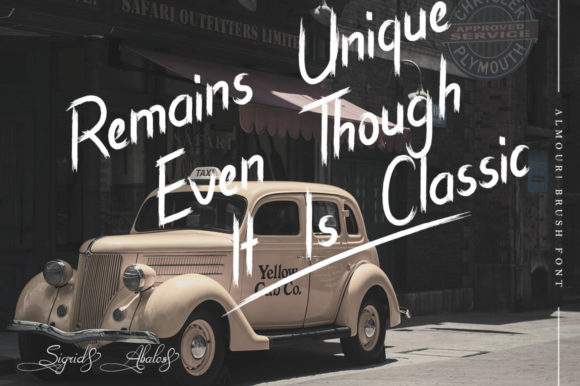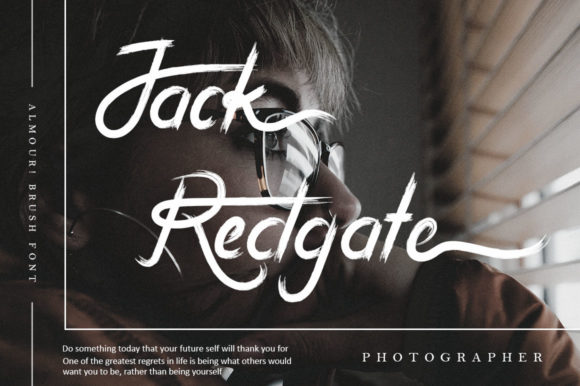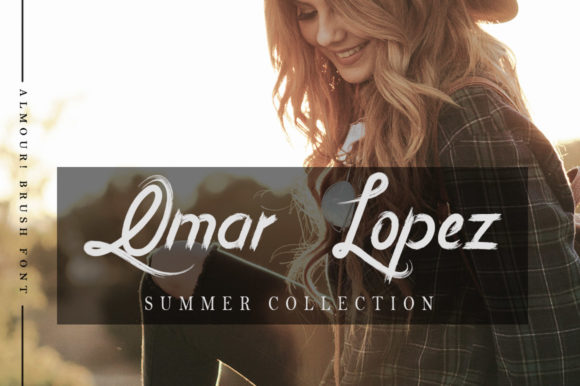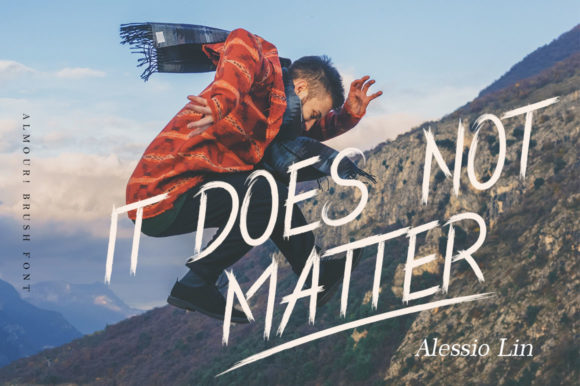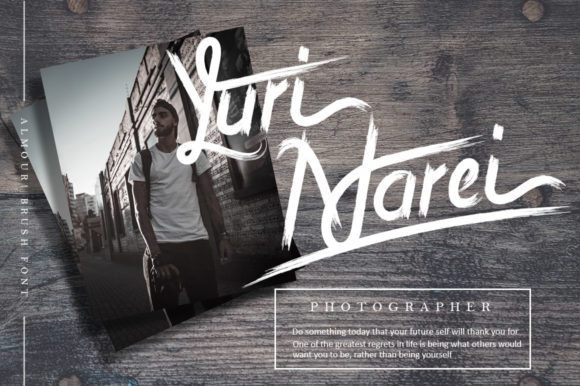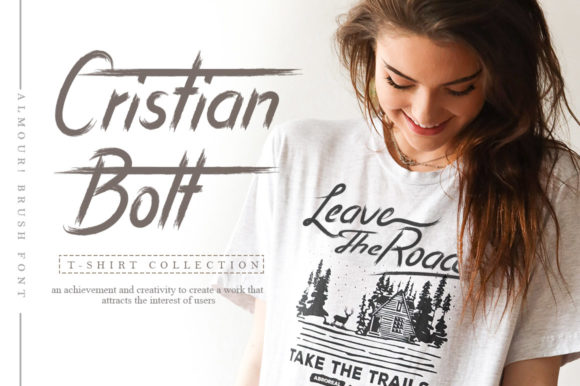
Discover the Artistic Charm of Almour! Font
As a designer, have you ever stumbled upon a font that sparks a creative moment, sending your imagination running wild with possibilities? For me, that moment came when I laid eyes on Almour! Font – a unique, handcrafted display font that embodies the perfect blend of elegance and playfulness.
Almour! Font is more than just a typeface; it’s a statement piece designed to elevate your crafty ideas. Whether you’re creating letterheads, titles, or stationery, this font adds a touch of sophistication and whimsy that’s sure to leave a lasting impression. As a designer, you’ll appreciate the versatility of Almour! Font, which makes it an invaluable addition to your design toolkit.
Key Features of Almour Font
- Unique Characteristics: Almour Font features a unique blend of modern and traditional design elements, with intricate details and ornaments that set it apart from other fonts.
- Style Variations: Almour Font is available in multiple styles, including regular, bold, italic, and bold italic, allowing for a wide range of design possibilities.
Almour! Font Review
Overall, I found the Almour! font to be a decent addition to a designer’s toolkit. It has its strengths and weaknesses, which I’ll outline below.
- Unique aesthetic: The Almour! font has a distinctive, modern feel that sets it apart from more generic sans-serif fonts.
- Good legibility: The font is easy to read, even at smaller font sizes, making it suitable for body text or headings.
- Highly customizable: Almour! comes with a range of OpenType features and stylistic sets, allowing designers to fine-tune the font to suit their needs.
- Limited language support: The font may not include the full range of characters needed for languages like Chinese, Japanese, or Arabic.
- Not ideal for fine typography: The font’s bold weights may not be suitable for fine typography or intricate designs.
The Almour! font is a solid choice for designers who want a modern, legible font with a unique aesthetic. However, its limitations may make it less suitable for projects requiring extensive language support or fine typography. With some creative problem-solving, the Almour! font can be a valuable addition to a designer’s toolkit.
Tips for Getting the Most Out of Almour! Font
Use Almour! font for titles and headings to add a touch of elegance and sophistication to your designs. Pair it with a clean and simple font for body text to create a balanced and harmonious visual flow.
Almour! font is ideal for:
- Luxury branding and marketing materials
- High-end packaging and labels
- Editorial and publishing designs